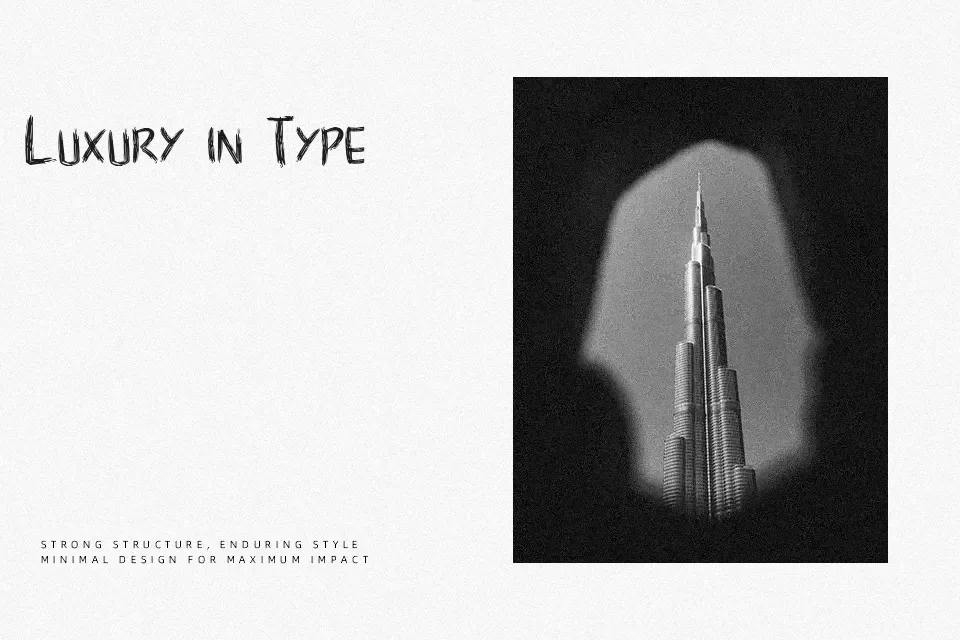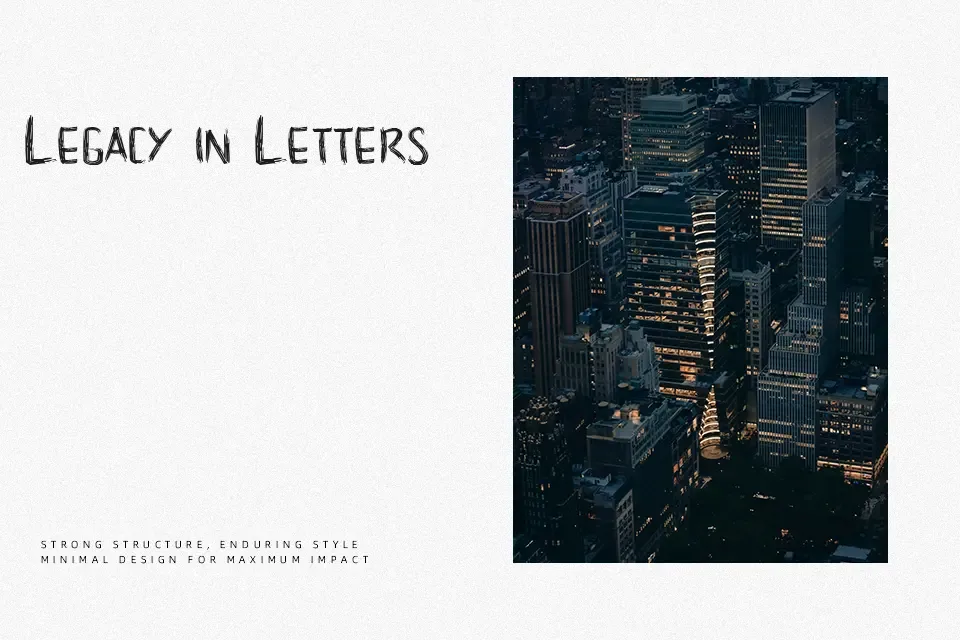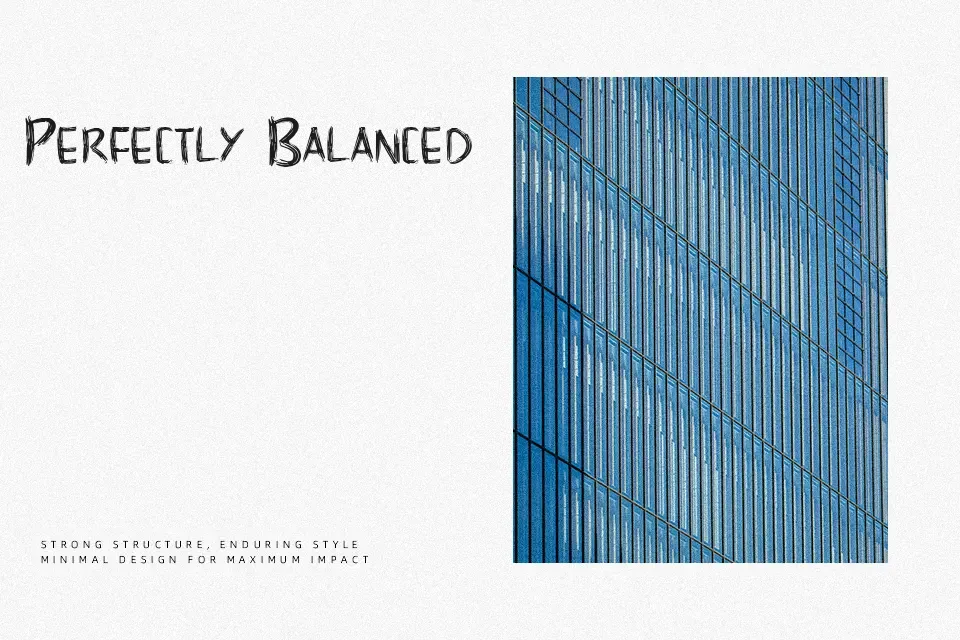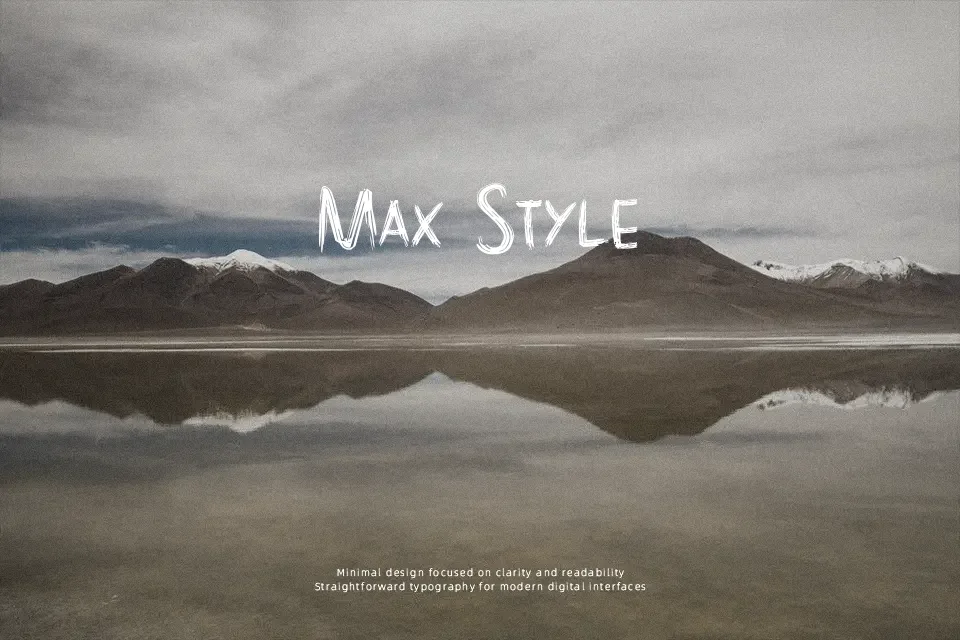
NoScary Font
Designed by Linafis Studio
NoScary Font works best as a decorative display face with irregular, horror-oriented letterforms and a deliberately expressive silhouette. The strokes appear substantial and varied rather than mechanically uniform, giving short words a lively, unsettled rhythm. Spacing is more effective in large settings, where the character shapes have room to remain distinct. It suits event titles, themed packaging, and poster headlines that need a dark seasonal presence. The design is visually stronger than it is neutral, so it should be paired with a simpler supporting typeface. Decorative forms become less comfortable to read in compact captions or continuous text.
Perfect for halloween, headline, and poster, with a creative and decorative style.